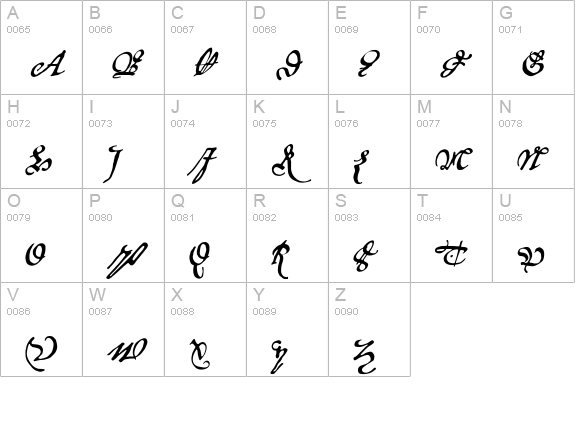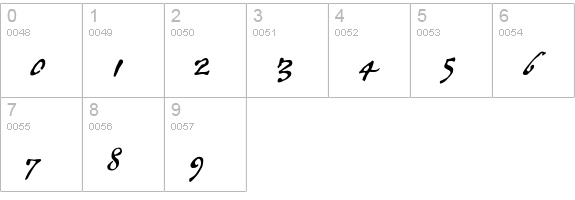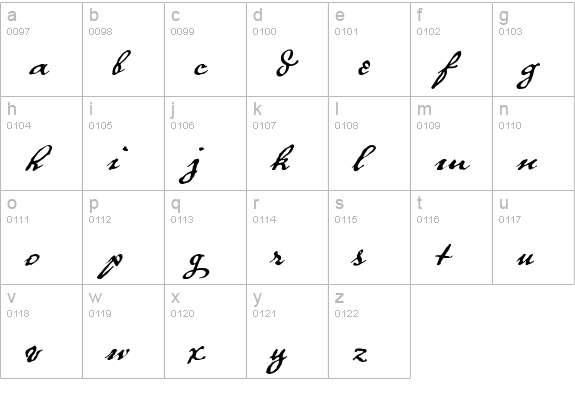
P22Royalist Font Details
P22Royalist font is a stunning display typeface that exudes elegance and sophistication. Its refined letterforms are inspired by classic calligraphy, with a touch of modernity, making it perfect for adding a regal touch to any project. The intricately designed characters of P22Royalist font are meticulously crafted, showcasing delicate curves and graceful strokes that effortlessly capture attention. This font's timeless appeal is further enhanced by its versatility, making it suitable for a wide range of designs, from formal invitations and wedding stationery to branding materials and luxury packaging. Adding to its appeal, P22Royalist font is freely available to download at FontsMarket.com. This means that designers, creatives, and typographers can easily access this exquisite font without any cost, making it an excellent choice for both personal and commercial projects. With P22Royalist font, you can effortlessly elevate your designs, creating a sense of refinement and sophistication that is sure to leave a lasting impression. So why wait? Download this freely available font today and let your creativity soar.